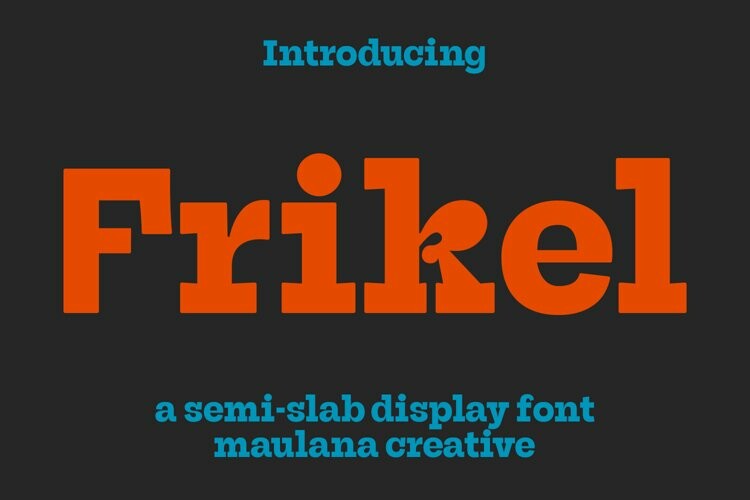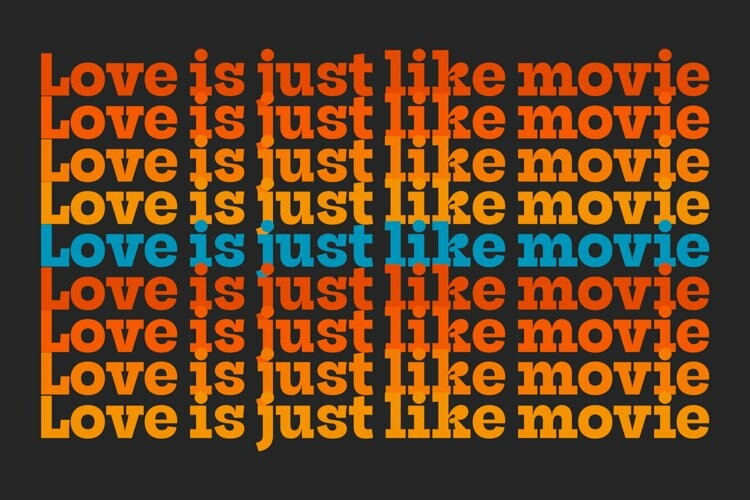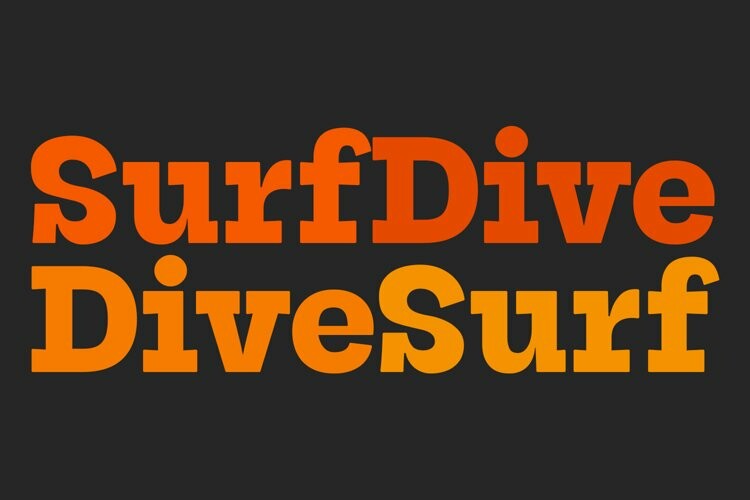
Frikel Semi Slab Display Font
Frikel Semi Slab Display FontFrikel is a simply semi-slab sans serif font. With medium low contrast stroke, fun character with a bit of ligatures and alternates. To give you an extra creative work. Frikel font support multilingual more than 100+ language. This font is good for logo design, Social media, Movie Titles, Books Titles, a short text even a long text letter and good for your secondary text font with sans or serif. Make a stunning work with Frikel font.